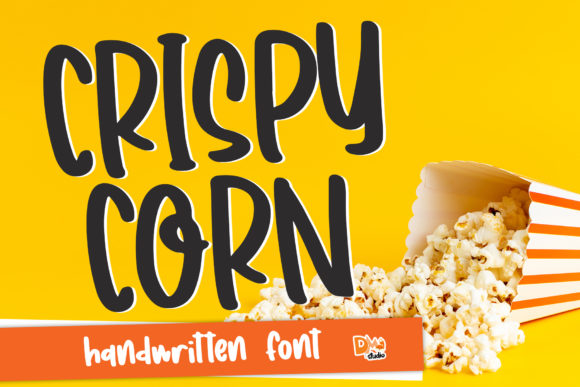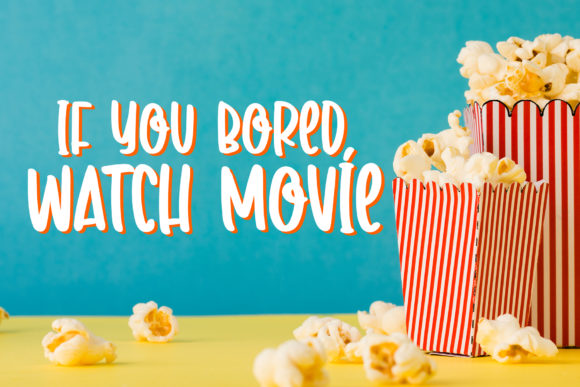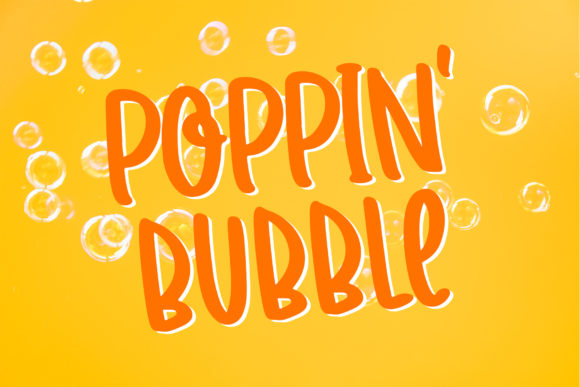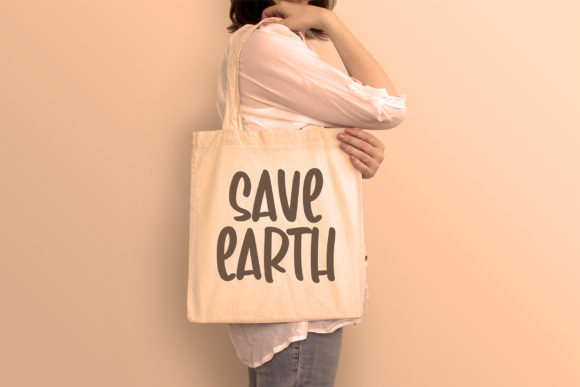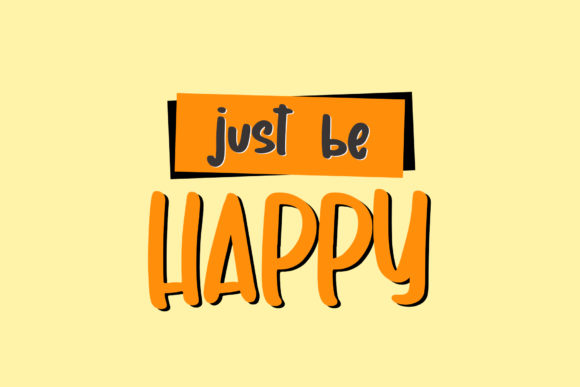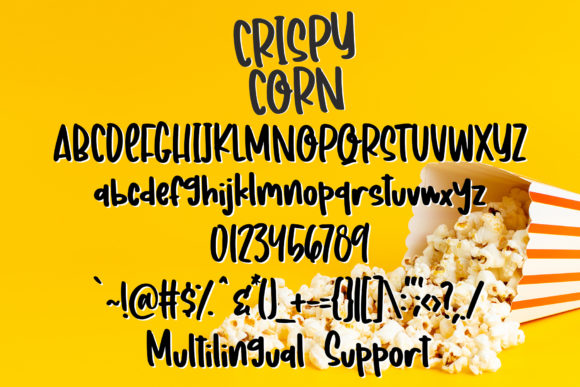
Crispy Corn Font
About Crispy Corn Font
“Crispy Corn” is a cute and quirky handwritten font that brings a delightful and joyful touch to your designs. Its unique style and playful charm make it a perfect addition to various creative projects. Here are the key features that make “Crispy Corn” stand out:
Cute and Playful: The cute and playful nature of “Crispy Corn” instantly captures attention and adds a sense of fun to your designs. Its cheerful and lighthearted appearance brings a smile to the faces of viewers.
Quirky Handwriting: The quirky handwriting style of “Crispy Corn” gives your text a distinct and whimsical look. It’s as if the font was handwritten by a playful and imaginative artist, adding character and personality to your designs.
Joyful Appeal: “Crispy Corn” radiates joy and happiness, making it an ideal choice for designs that aim to evoke positive emotions. It adds a sense of celebration and cheerfulness to your creative ideas.
Versatile Usage: This font’s versatility allows it to adapt to various themes and concepts. Whether you’re designing for children, celebrations, food-related content, or any other fun project, “Crispy Corn” will fit right in.
Standout Design: Adding “Crispy Corn” to your creative ideas instantly makes them stand out from the crowd. Its unique style ensures that your text becomes eye-catching and attention-grabbing.
Youthful and Energetic: “Crispy Corn” has a youthful and energetic vibe that energizes your designs. It’s an excellent choice for projects targeting a younger audience or seeking to infuse a sense of enthusiasm.
Expressive Typography: The expressive nature of “Crispy Corn” allows you to emphasize specific words or phrases creatively. It offers various alternative glyphs and ligatures to add visual interest to your text.
Joyful Branding: For businesses or brands looking to portray a fun and vibrant image, “Crispy Corn” is a fantastic font choice. It adds an element of playfulness and positivity to logos, packaging, and marketing materials.
Playful Greeting Cards: When designing greeting cards or invitations for special occasions, “Crispy Corn” brings a playful and joyful tone to your heartfelt messages, making them even more memorable.
Delightful Social Media Graphics: For social media posts, ads, or other online content, “Crispy Corn” can enhance the visual appeal and engagement. Its cute and quirky style resonates well with online audiences.
In conclusion, “Crispy Corn” is a cute and quirky handwritten font that exudes joy and playfulness. Its unique charm, expressive typography, and versatile usage make it a valuable asset for various design projects. Whether you’re creating content for children, celebrations, food, or simply want to add a touch of fun to your designs, “Crispy Corn” will make your creative ideas stand out with its delightful and joyful personality.